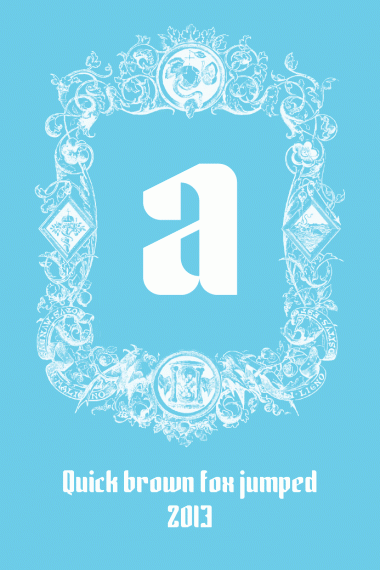
You have been very productive and published some interesting works lately and this one is no exception. A few suggestions: k's arm and leg would look better staying under the x-height and numbers are usually as tall as the upper case. Keep up the good work!
Another good one!
Strong but curvy - very nice. 10/10
I think I agree with 'four' about the k though.
Numbers much better, k still needs an ascender.
Ok, now it seems like a k. =)
Lookin' good :)
Better!
Wow, enjoy this inspiring artwork!
Lovin' the sample so much...